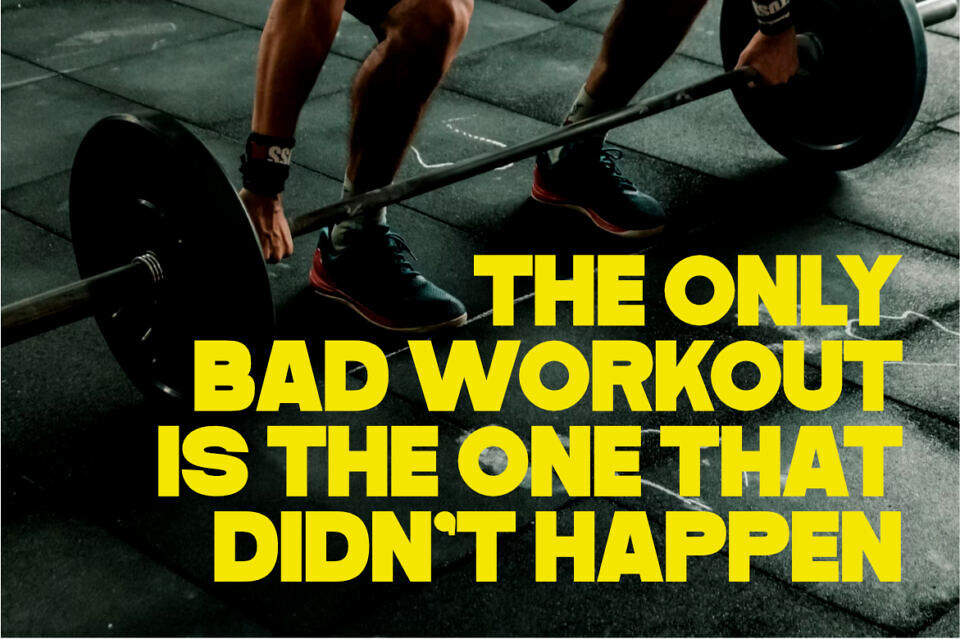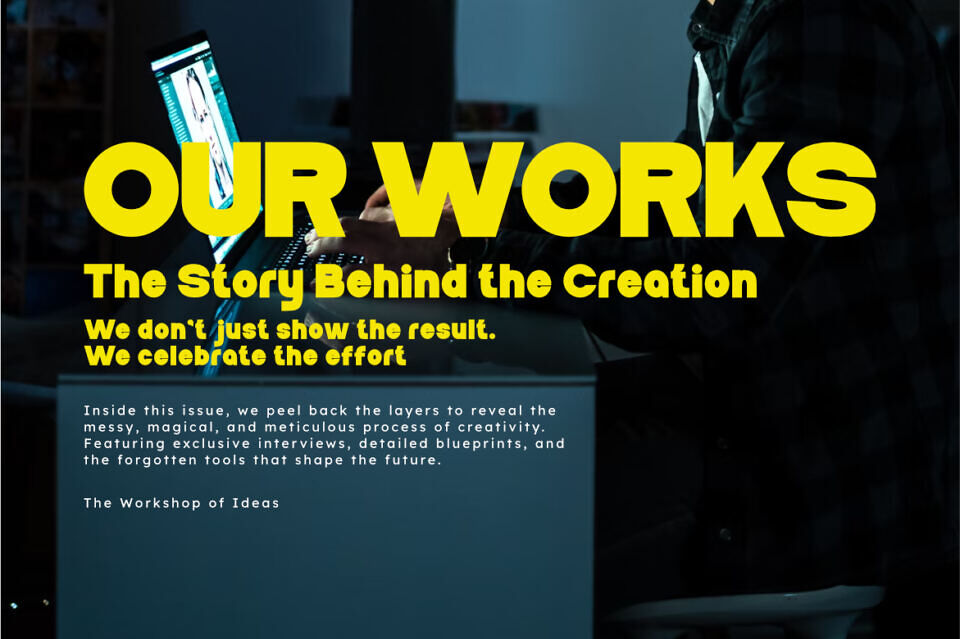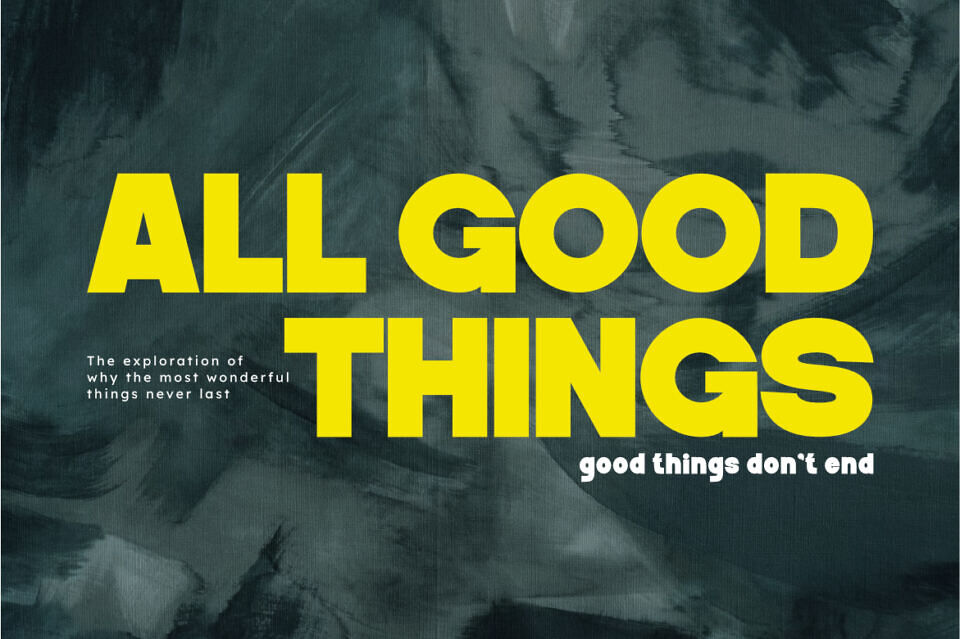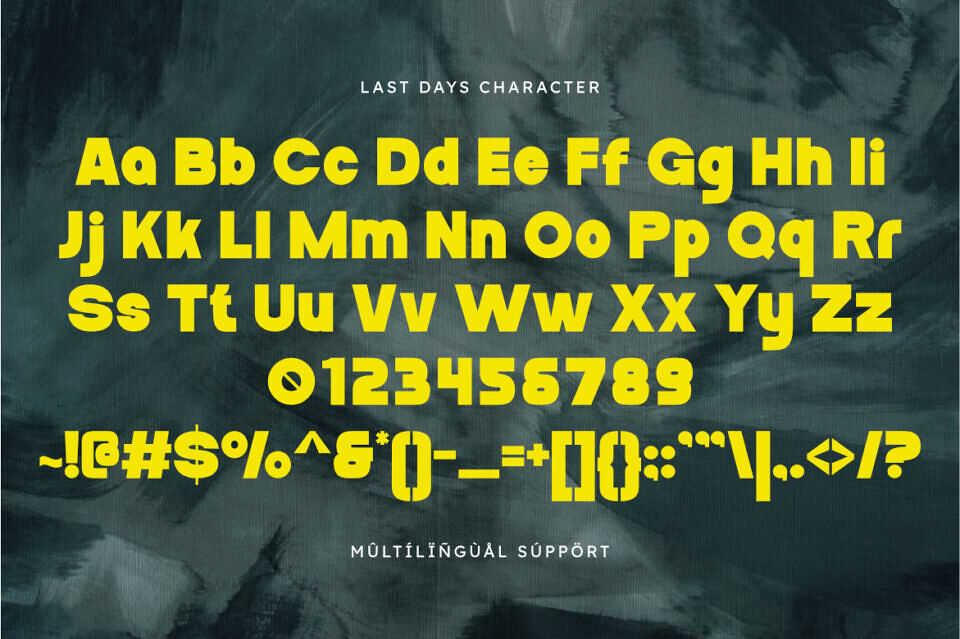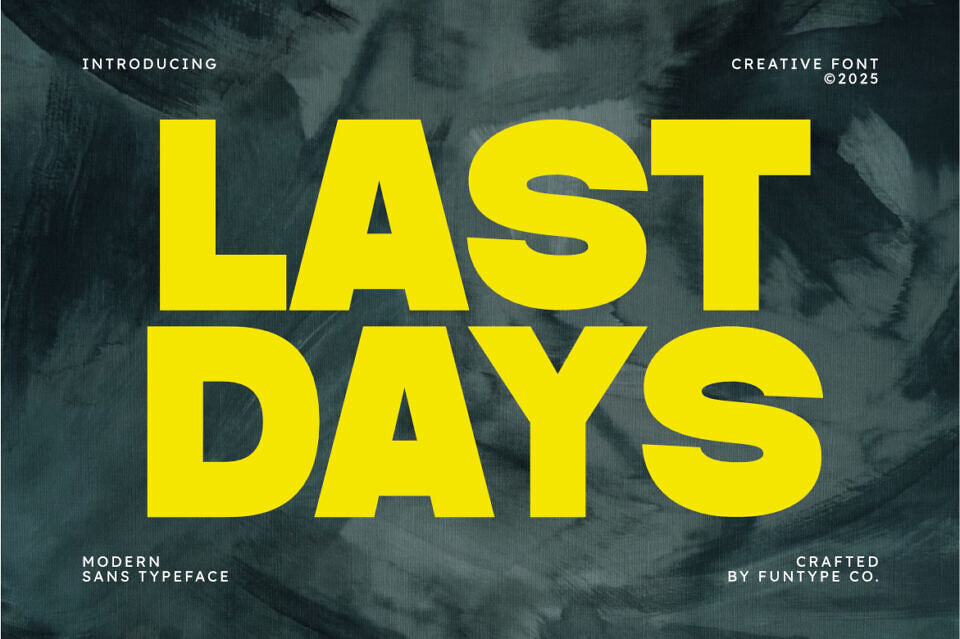
Last Days Font
Last Days is a modern bold sans typeface built for strong and attention-grabbing designs. With its wide, geometric shapes and clean edges, this font delivers confidence and clarity in every word.
Perfect for headlines, posters, branding, album covers, sports graphics, and impactful typography projects. Its balance between modern simplicity and heavy weight makes it an excellent choice for both print and digital use.